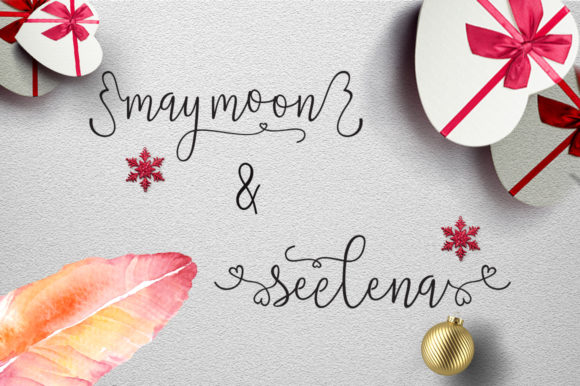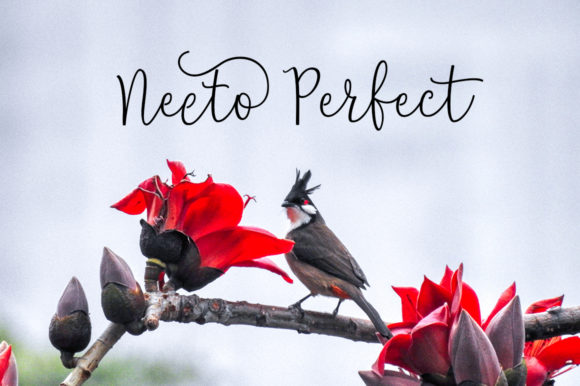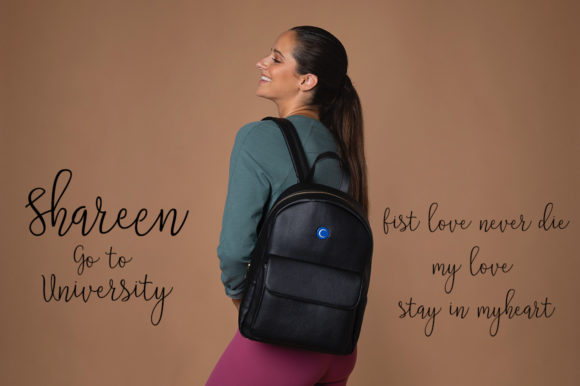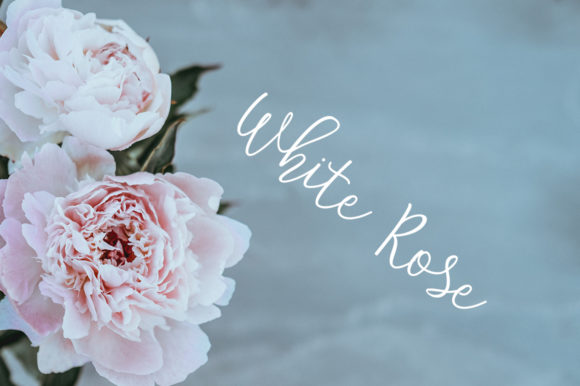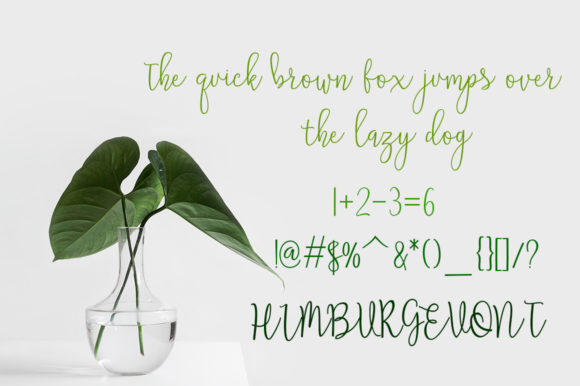
Introduction to Joolyawan Font
Joolyawan is an equally bold and charming handwritten font with a cool twist.
| 👤 Author | Microcreative |
Use it to turn any design project into a true standout .
Key Features of Joolyawan Font